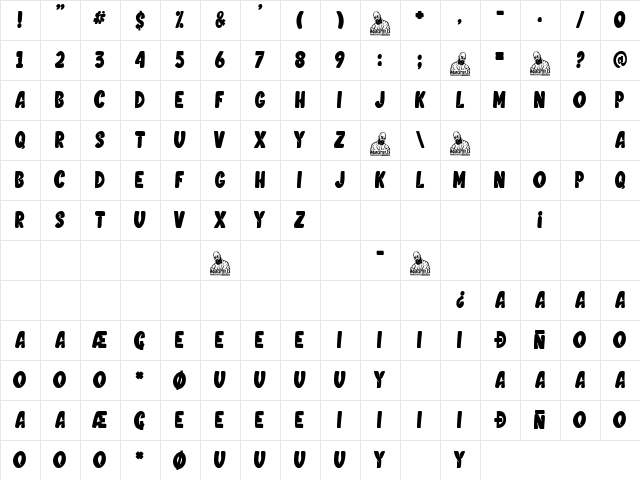
Copacabana Corporation Regular Free Font
Copacabana Corporation Regular
Designer: Woodcutter Manero
Complete Copacabana Corporation Regular glyph index. Displaying only characters natively supported by Copacabana Corporation Regular font.
Design Context for Copacabana Corporation
Copacabana Corporation is a composed and adaptable typeface that performs quietly and consistently across a wide range of design contexts.